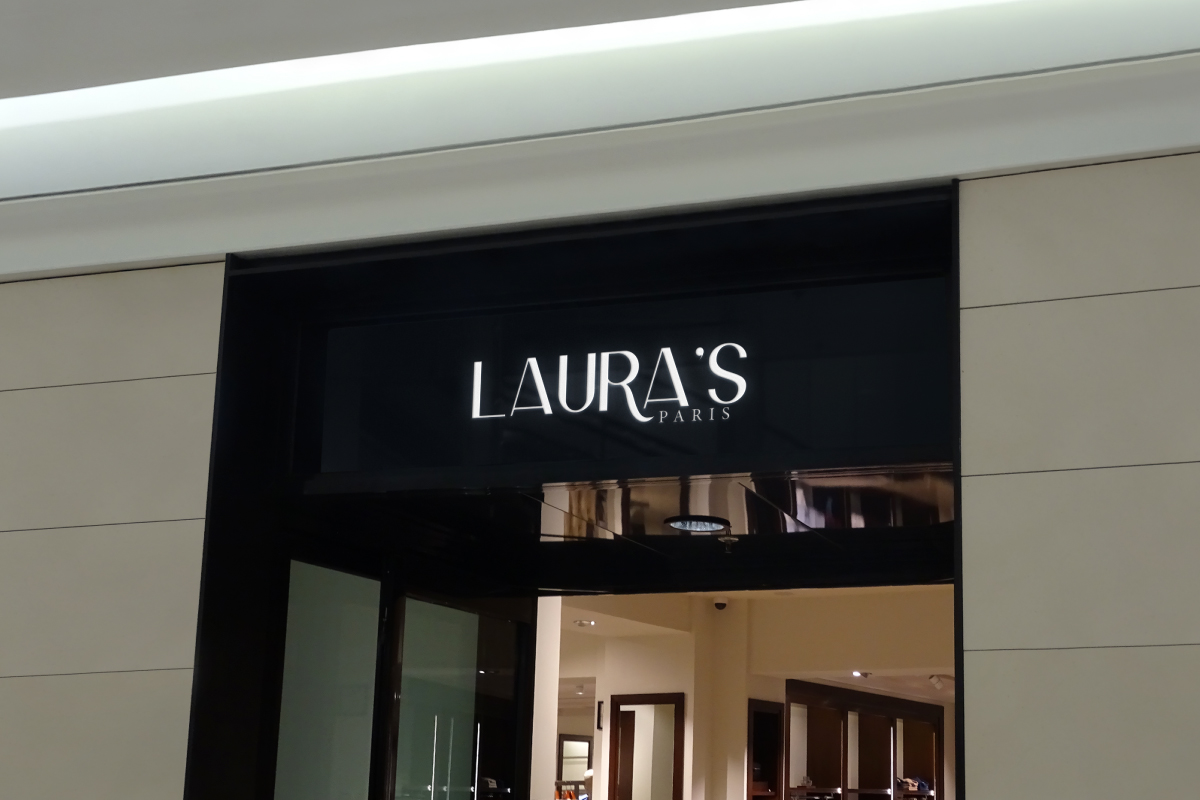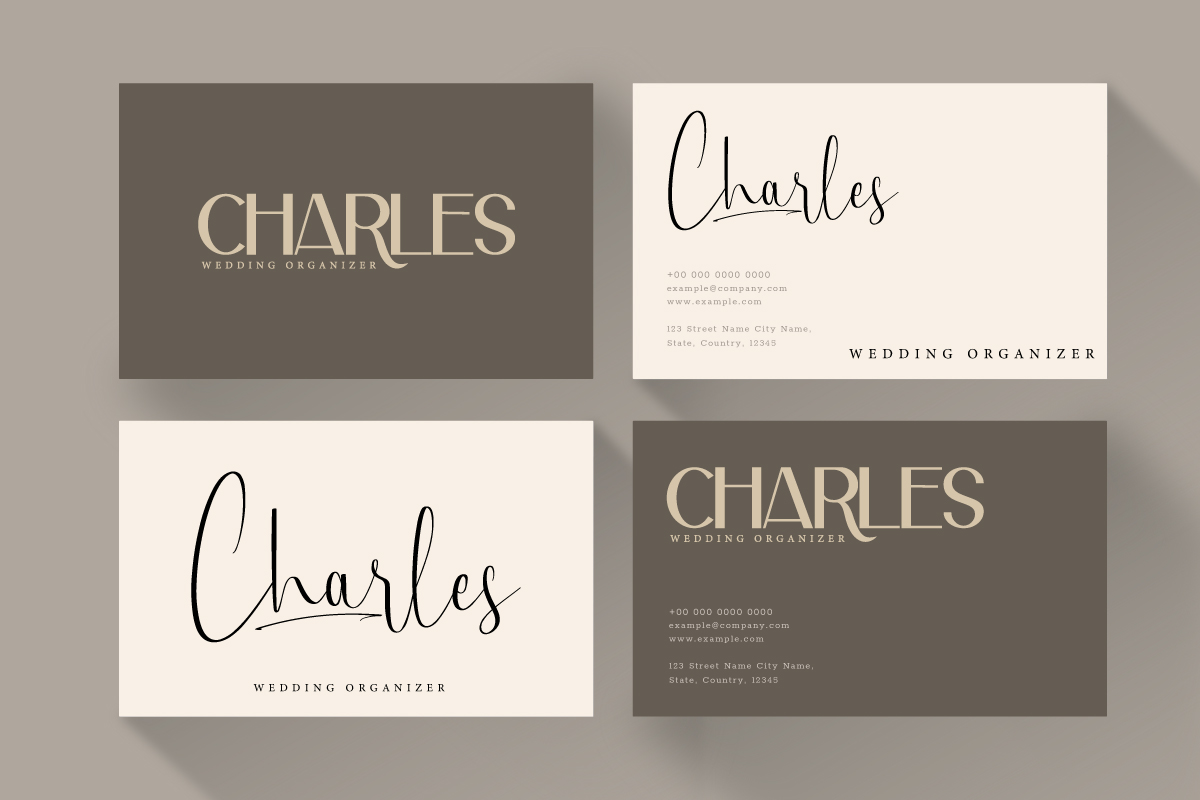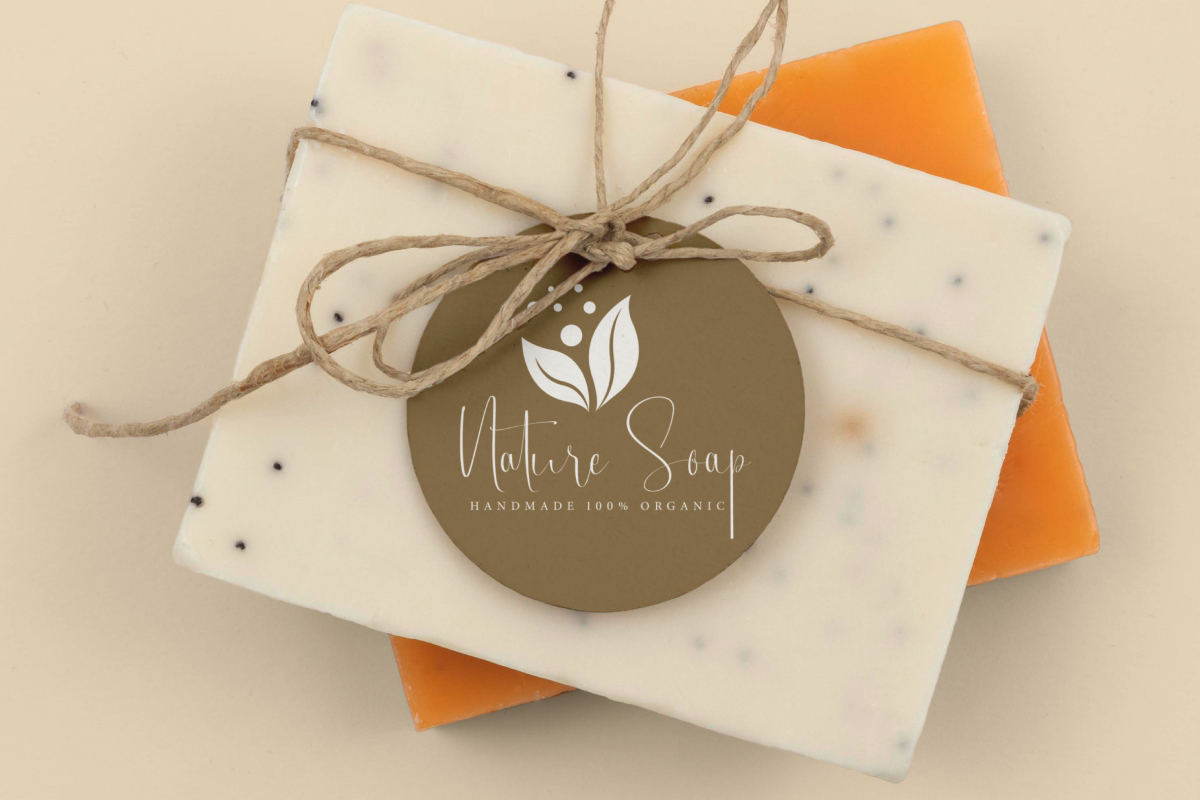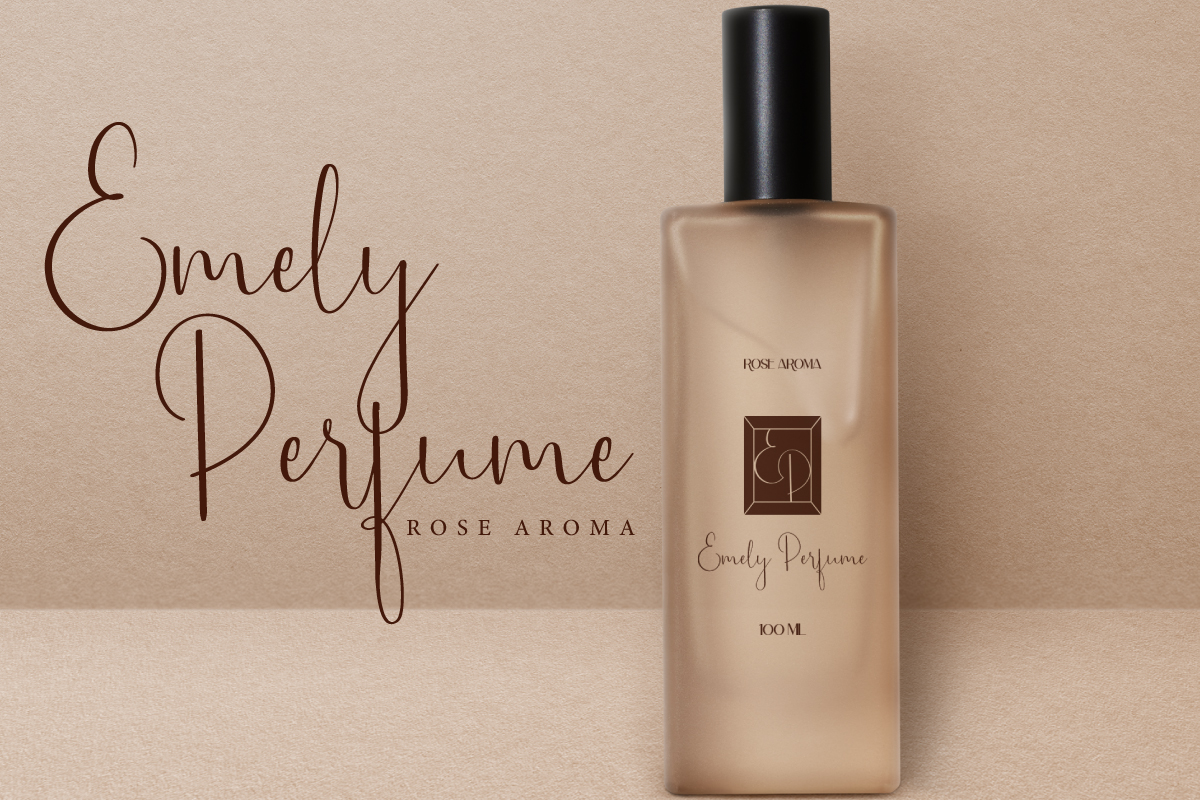
Brittany Rays Font
Brittany Rays Font Duo
This is a stunning and elegant font duo, brings together two different font styles perfect to combine together or separately for a large range of designs. Create wedding invites, versatile business cards, shop signage, stickers product, pretty covers, packaging designs, homepage web or only text on the background.